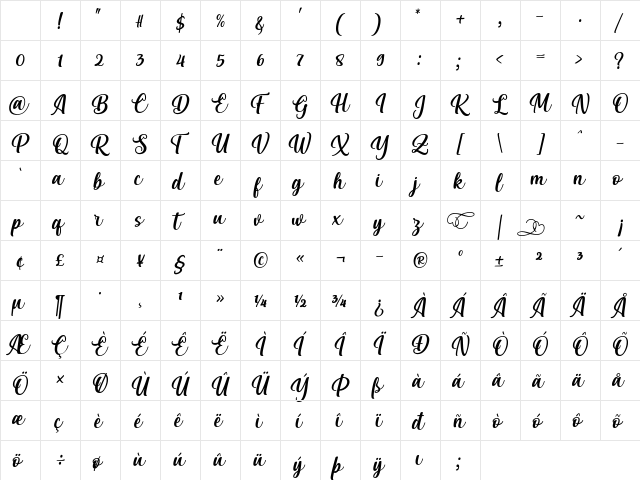
Vitalia Sesha is a composed and adaptable typeface that performs quietly and consistently across a wide range of design contexts.
Pro Tip: Use Vitalia Sesha in both headline and body roles to test its range before committing to a single application.